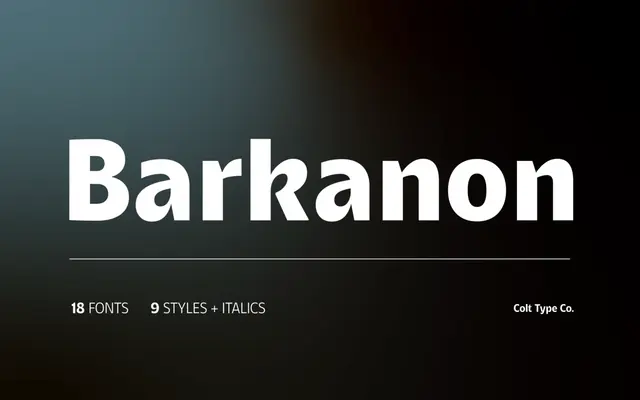
Barkanon
A humanist sans with nine weights and matching italics, designed to balance expressive display use with legibility in body copy.
Built on classic humanist proportions with a contemporary edge, Barkanon covers 96 languages across nine styles with full italic companions. Stylistic alternates, ligatures and additional OpenType features add flexibility for branding, editorial and identity work. The family occupies the middle ground between workhorse legibility and enough personality for headlines and logos.
The foundry describes it explicitly as a humanist sans serif, blending modern styling with classic humanist flow; suitable for both display and text use.